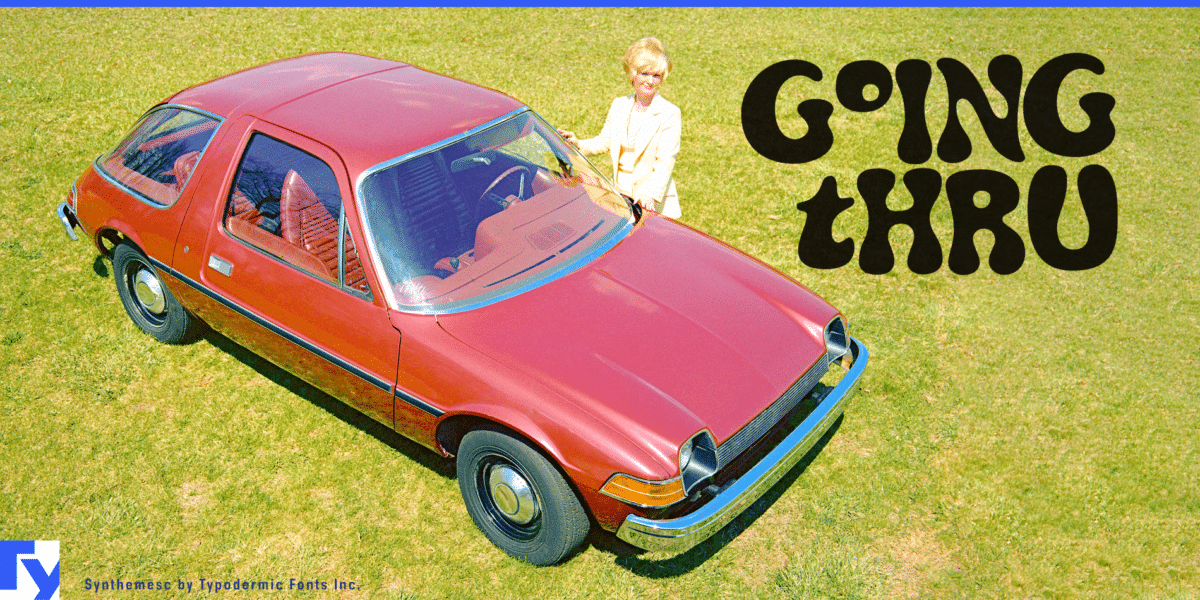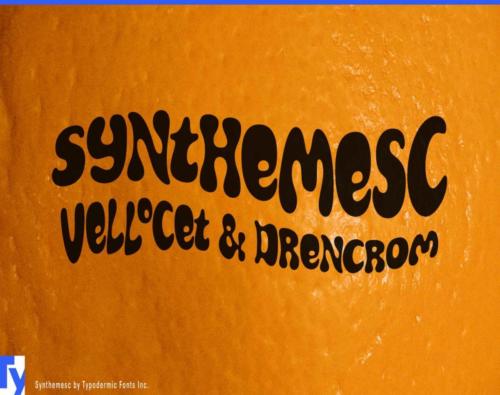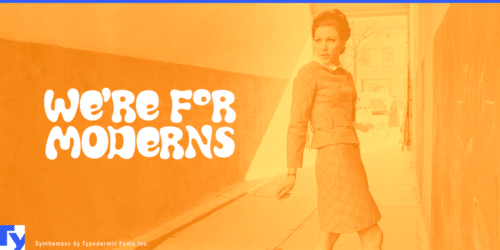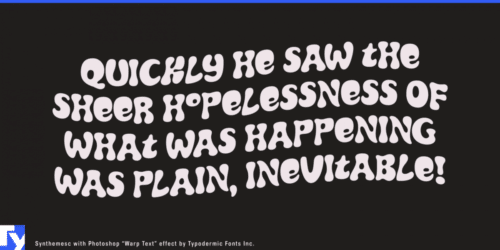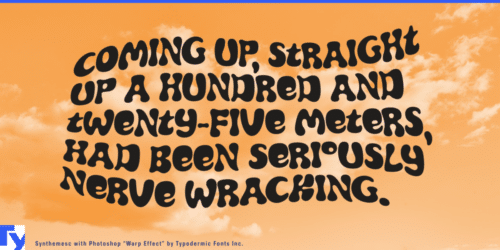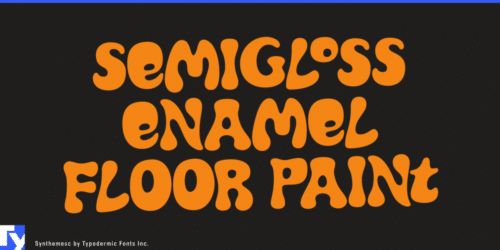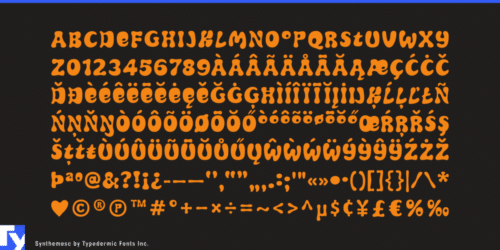
Viddy this: when the Korova Milkbar became a global franchise in 2001, Typodermic Fonts had been commissioned to design their choodessny official display font. Tragically, the entire Korova chain has been recently acquired by Starbucks and they’re no longer using the Synthemesc font. Luckily, you can still shvat a chasha of moloko plus with synthemesc, vellocet or drencrom at any Starbucks.
- Designer: Ray Larabie